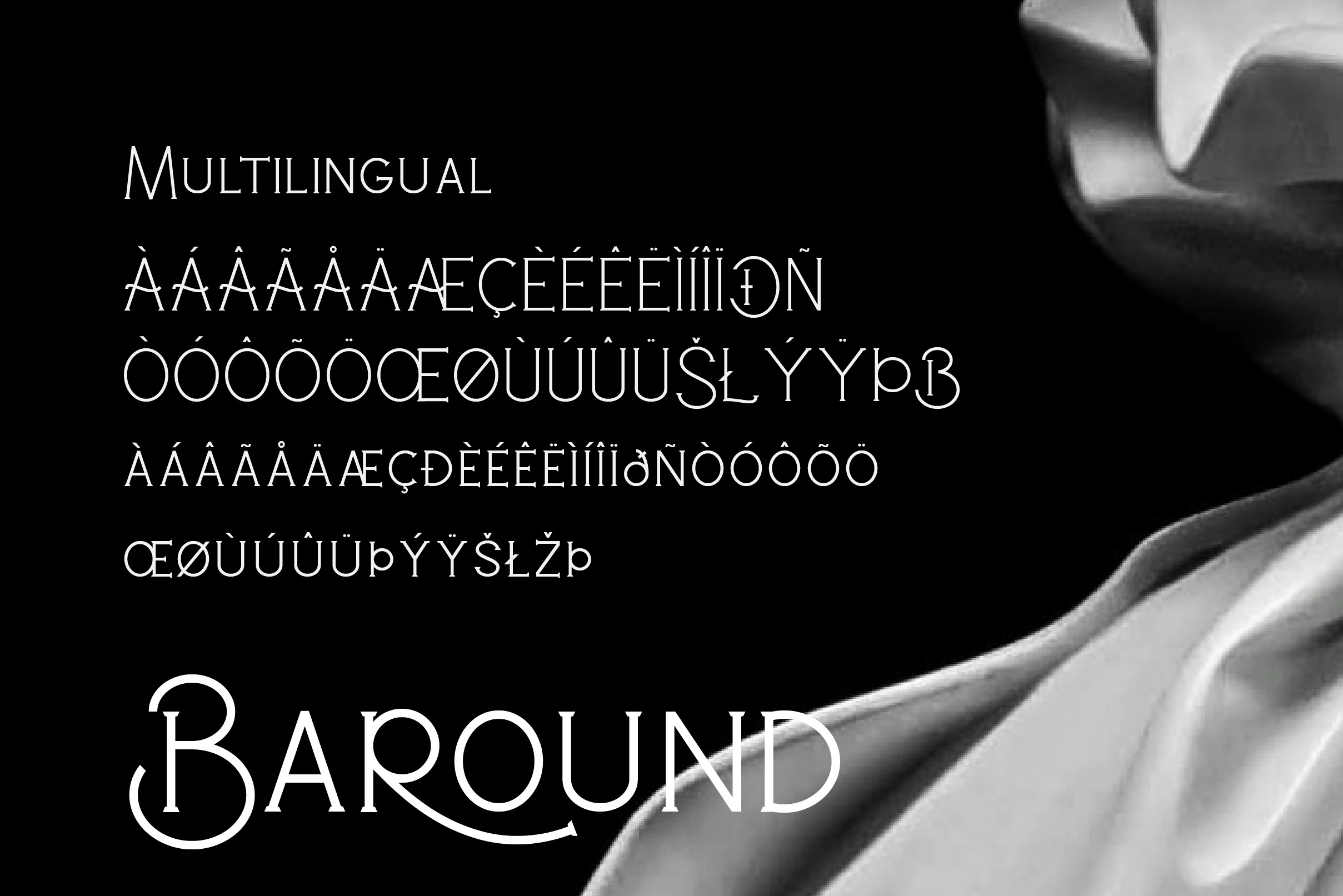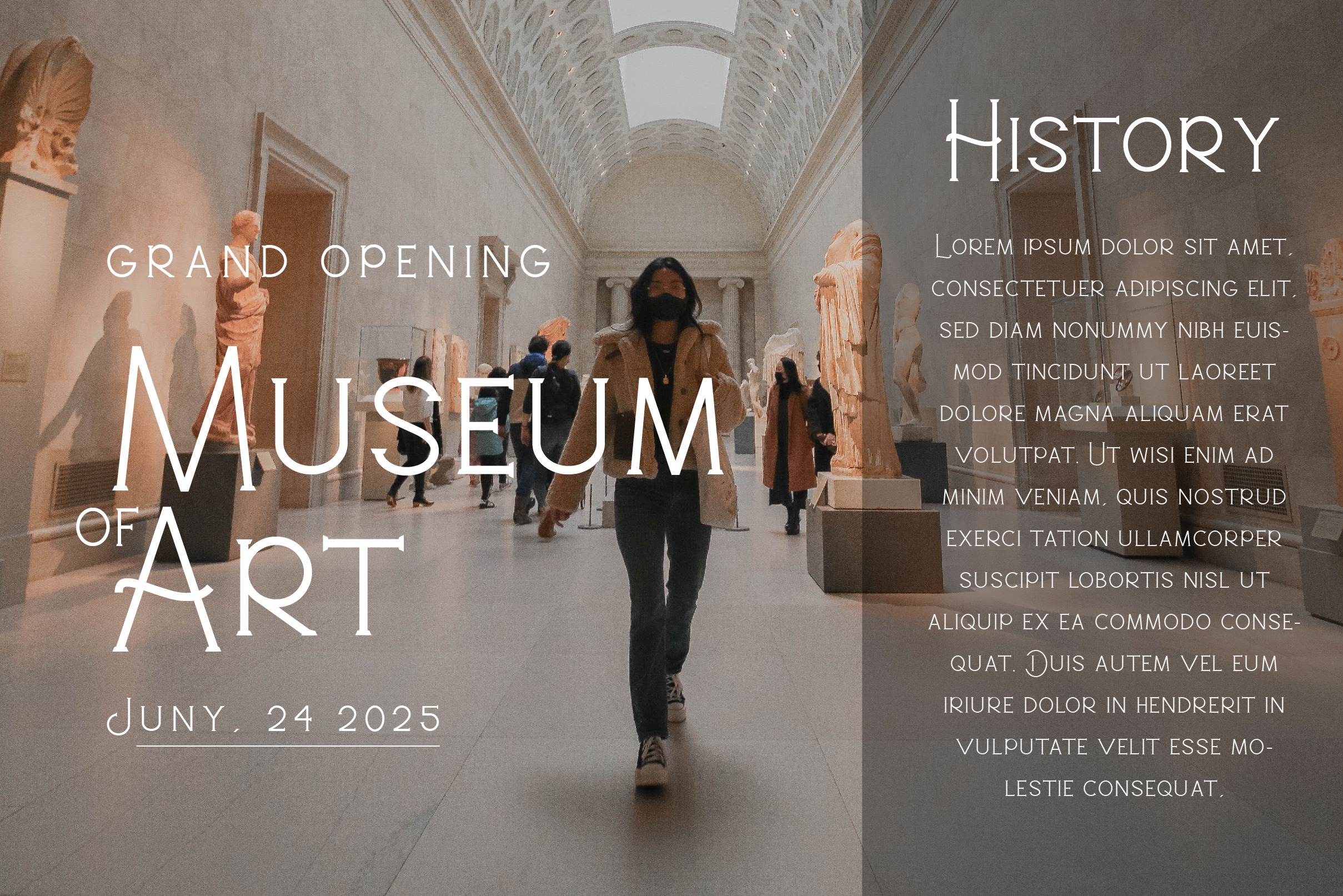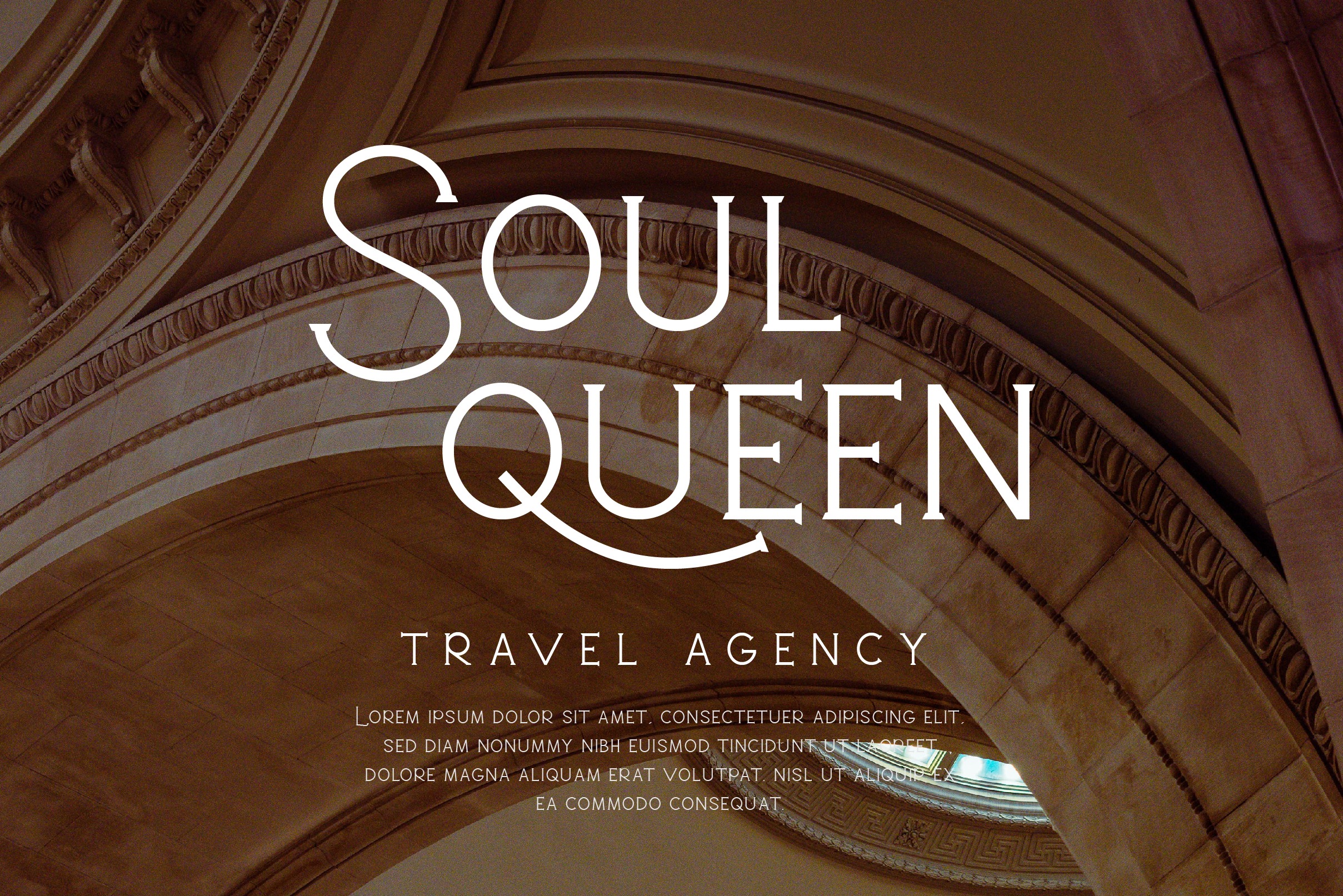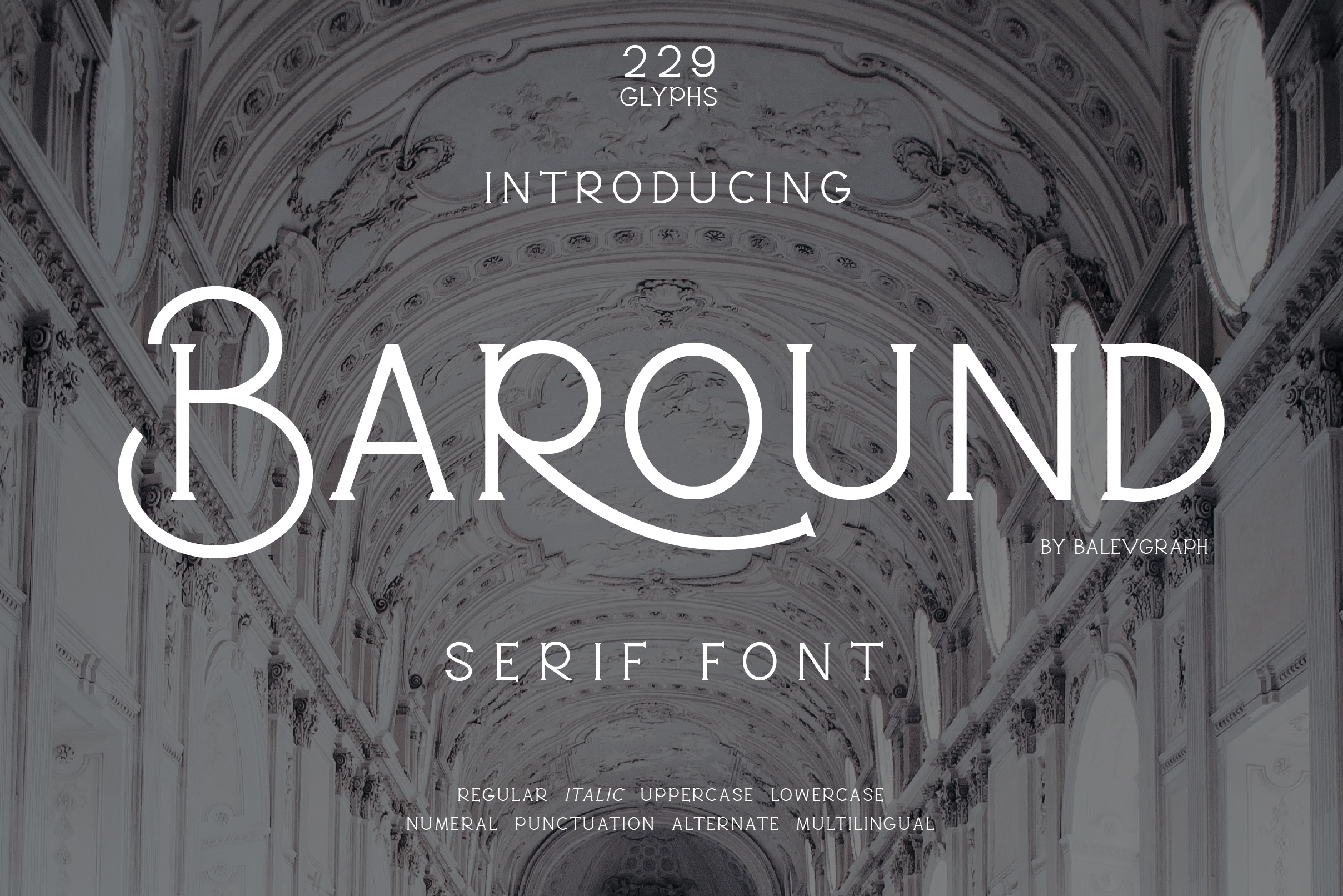
Baround Serif Font
This is a elegant and classy serif typeface crafted & designed by Balevgraph Studio, This font is both modern and nostalgic and works great for logos, magazine, social media. It can easily be matched to an incredibly large set of projects, so add it to your creative ideas and notice how it makes them stand out!